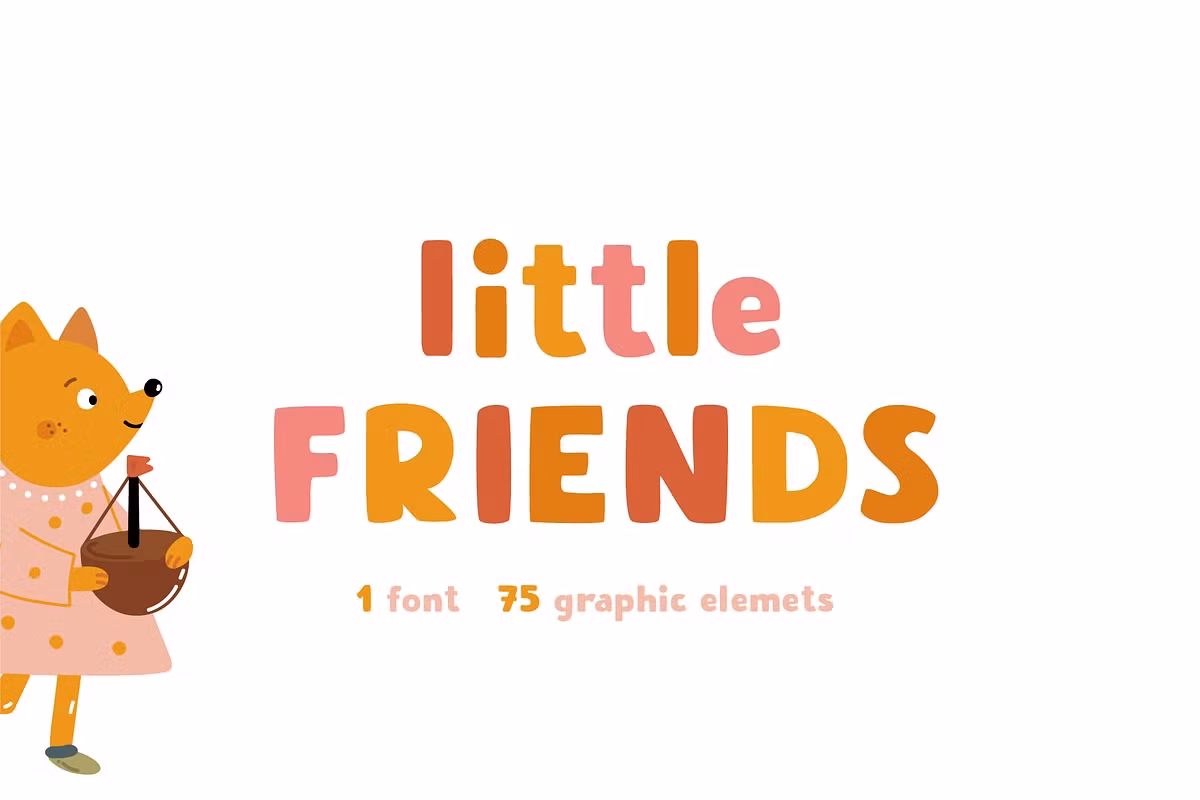
Little Friends | Hand Drawn Font Free Download is a playful and charming typeface that captures the joy and innocence of childhood. Perfect for kids’ products, storybooks, birthday invitations, classroom materials, and creative branding, this font brings a fun, hand-crafted feel to any design.
With its quirky lines and friendly personality, Little Friends | Hand Drawn Font Free Download makes your designs feel approachable, cheerful, and full of heart. Whether you're creating a children’s brand or crafting whimsical graphics, this font adds a delightful handmade touch. Try it in your next project to experience its joyful energy—then upgrade to a commercial license when you’re ready to share it with the world.